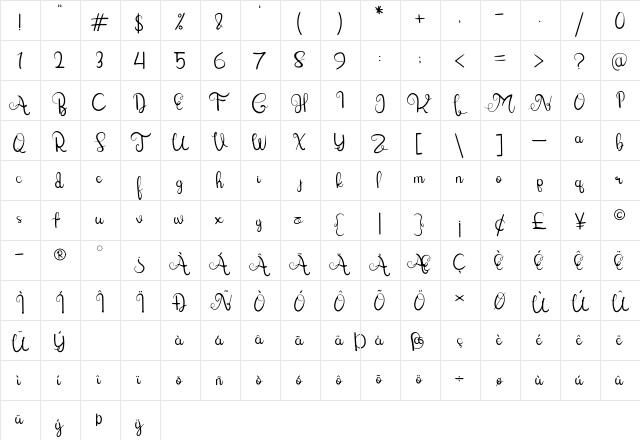
Lettering Script Regular
Design Context for Lettering Script Typeface
Lettering Script brings a calligraphic fluidity to the page — its connecting strokes and expressive curves give it an unmistakably human quality.